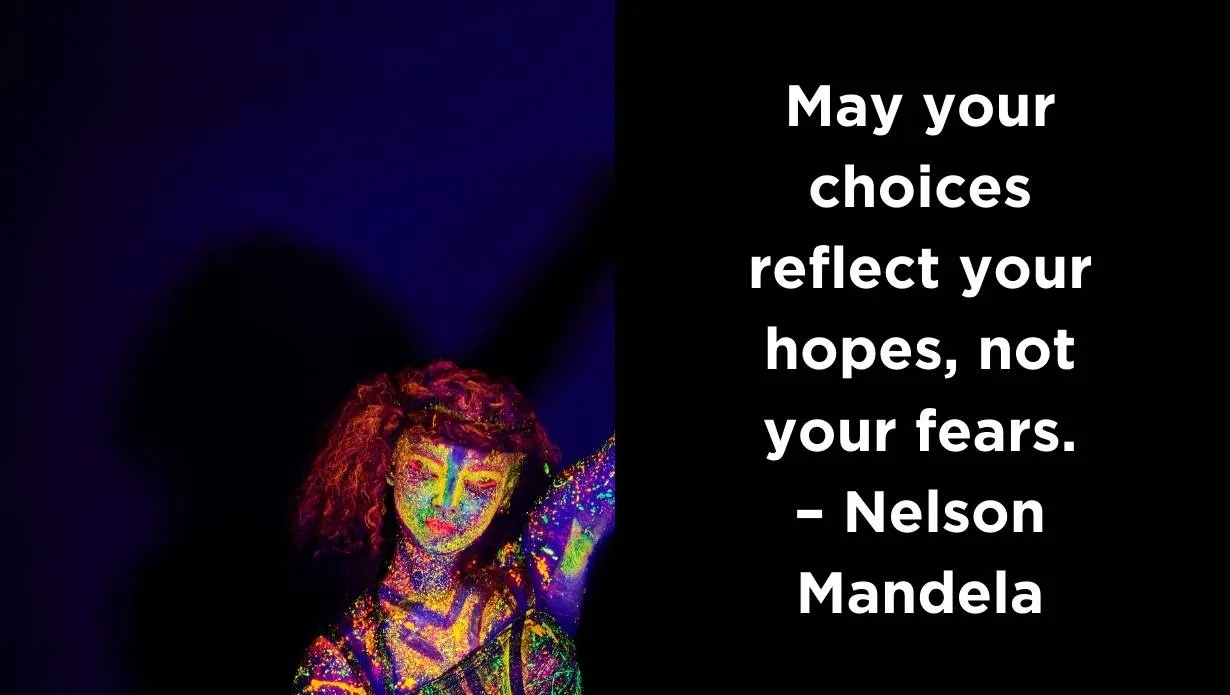
Spotify Font was developed by Andreas Holmstrom. This cute typeface belongs to the Sans-Serif typeface. The main aim of this font is to improve the overall look and feel of the Spotify app. It is best for CSS and SVG.
This simple, yet stylish font has a clean and modern look that makes it perfect for use in Spotify’s interface. Its 66 popular and stylish weights make it versatile and easily adaptable to different situations. Typograph Pro Font is the closest to this stunning font. You can use it for other programs like Canva, Adobe, and others.
| Name | Spotify Font |
| Designer | Andreas Holmstrom |
| Style | Sans seirf |